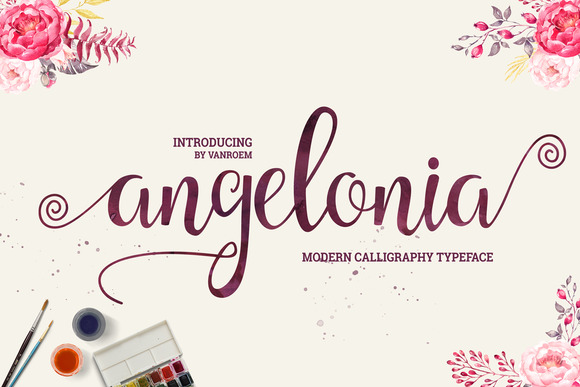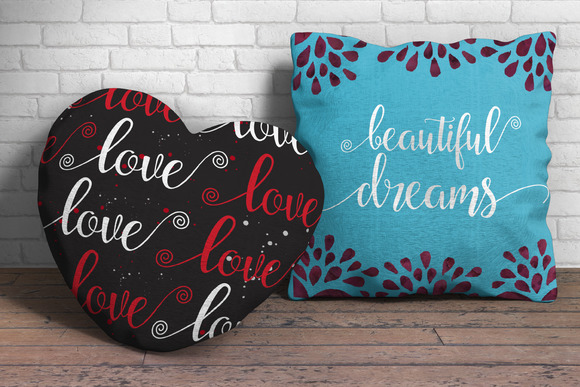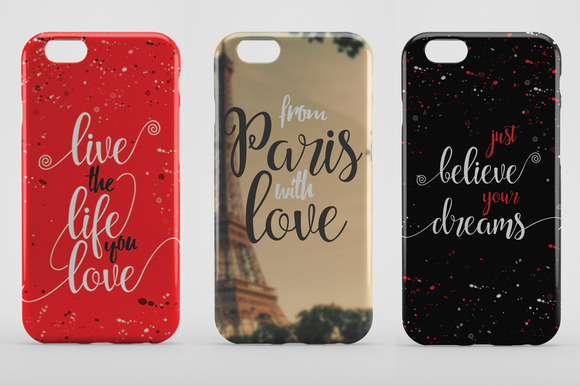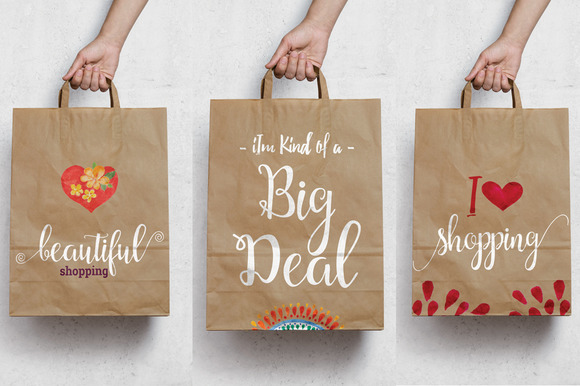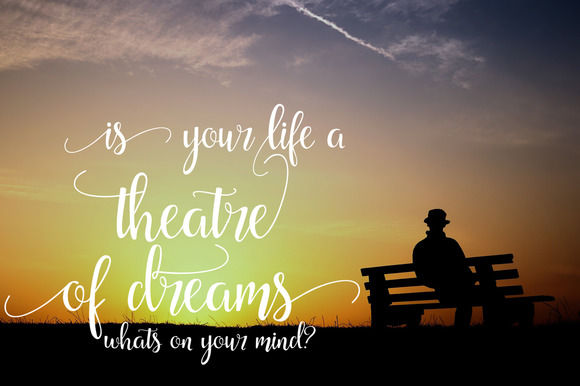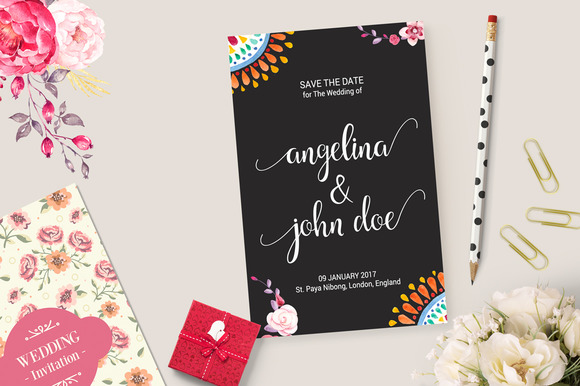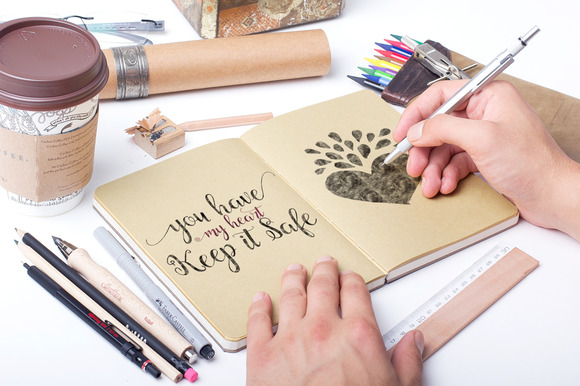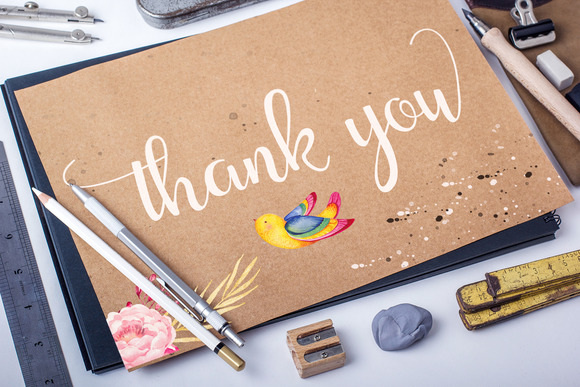
Angelonia Font
About Angelonia Font
Angelonia is a script font, combined with brush lettering and traditional hand writing. Ease to match with other typefaces to create something beautiful. Angelonia can be used for various purposes such as headings, logos, invitations, t-shirt designs, greeting cards, posters, labels, book covers, brochures and much more.